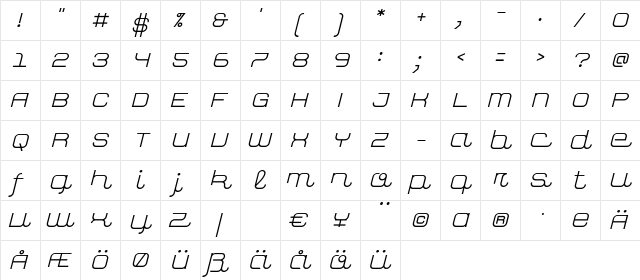
closeHookline Thin Font Preview
closeHookline Thin
Design Context for closeHookline Typeface
closeHookline is a composed and adaptable typeface that performs quietly and consistently across a wide range of design contexts. The delicate stroke weight brings airiness and refinement to layouts.